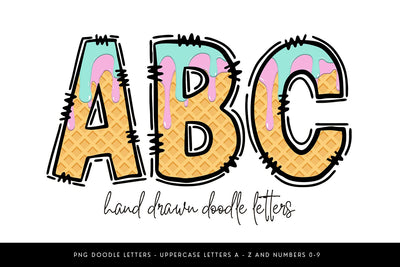
Ice Cream Drip Alphabet PNG, Waffle Cone Font
Add a splash of summer sweetness to your designs with this Ice Cream Drip Alphabet! Featuring a playful waffle cone base with pastel melting drips, this high-resolution PNG doodle font is perfect for birthdays, summer parties, kids’ crafts, and fun printable projects.
✦ Uppercase letters A-Z
✦ Numbers 0 - 9